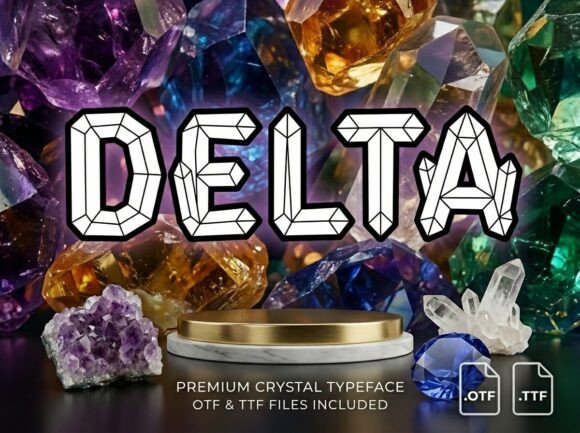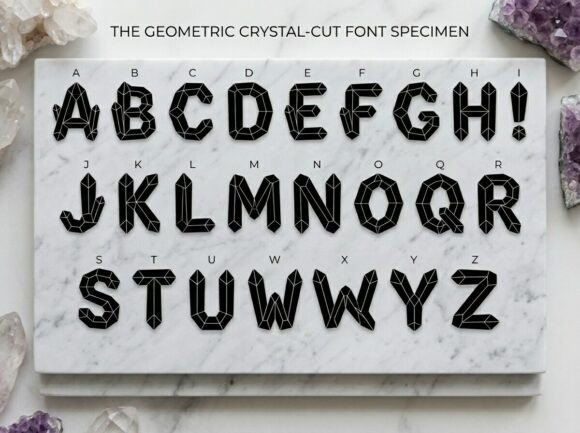
Introducing Delta Font: Elevate Your Visual Identity with Crystalline Elegance
In the world of typography, a font can make or break a brand’s visual identity. For designers and crafters seeking to elevate their creative projects, Delta Font is a game-changer. Inspired by the sharp facets and structural brilliance of natural crystals, Delta is a premium display font that embodies innovation, luxury, and precision.
The Crystalline Inspiration Behind Delta
Delta’s design is rooted in the intricate beauty of crystals. Each character is meticulously constructed from a complex web of geometric lines, creating a mesmerizing 3D crystalline texture. This unique design element radiates a sense of sophistication and high-end quality, making Delta perfect for projects that demand attention to detail and a touch of elegance.
Key Features of Delta Font
- Massive Visual Weight: Delta’s bold design ensures that your text stands out, making it ideal for headlines, titles, and packaging.
- Clean Architectural Silhouette: The font’s sleek lines and geometric shapes create a sense of modernity and innovation.
- Intricate 3D Crystalline Texture: Add depth and visual interest to your text with Delta’s signature crystalline texture.
Perfect Applications for Delta Font
Delta’s versatility makes it suitable for a wide range of creative projects. Here are some ideal applications:
- High-End Jewelry Branding: Delta’s luxurious feel and crystalline texture evoke the sparkle and sophistication of precious gems.
- Innovative Tech Logos: The font’s modern, geometric design makes it perfect for tech companies seeking a cutting-edge visual identity.
- Spiritual or Wellness Headers: Delta’s crystalline texture adds a touch of mysticism and elegance to spiritual or wellness-related projects.
- Mineral-Themed Packaging: Showcase your products in a unique and captivating way with Delta’s mineral-inspired design.
Why Choose Delta Font?
Delta offers a unique combination of style, sophistication, and versatility. Here are just a few reasons why designers and crafters love Delta:
- Unparalleled Visual Impact: Delta’s bold design and crystalline texture ensure that your text stands out.
- Multifaceted Artisanal Charm: Add a touch of handcrafted elegance to your projects with Delta’s intricate design.
- Brilliant Precision: Delta’s geometric lines and clean silhouette create a sense of precision and attention to detail.
Tips for Using Delta Font Effectively
To get the most out of Delta, consider the following tips:
- Use Delta as a Display Font: Delta is designed to make a statement, so use it as a display font to draw attention to your text.
- Experiment with Color and Texture: Enhance Delta’s crystalline texture with creative color and texture combinations.
- Pair Delta with Complementary Fonts: Combine Delta with other fonts to create a unique visual hierarchy and add depth to your design.
Delta Font is a premium display font that offers a unique blend of style, sophistication, and versatility. With its crystalline inspiration, geometric design, and massive visual weight, Delta is perfect for designers and crafters seeking to elevate their visual identity. Whether you’re working on a high-end jewelry branding project, an innovative tech logo, or a mineral-themed packaging design, Delta is the perfect choice.